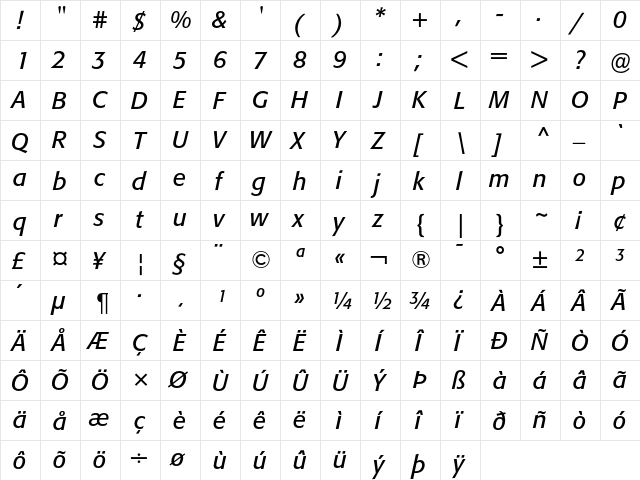
Formata Italic
Design Context for Formata Typeface
Formata offers clean, dependable letterforms without strong stylistic allegiance, making it a practical choice for designers who need flexibility. The slanted form adds forward momentum and visual energy.
Pro Tip: Use Formata for emphasis, pull quotes, and subheadings where its slanted energy can add rhythm to the layout.